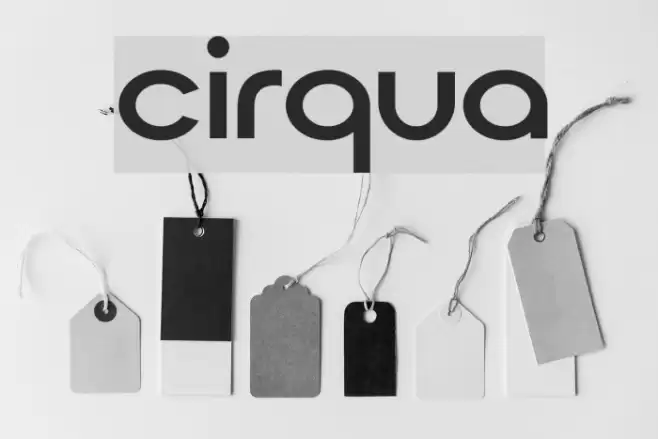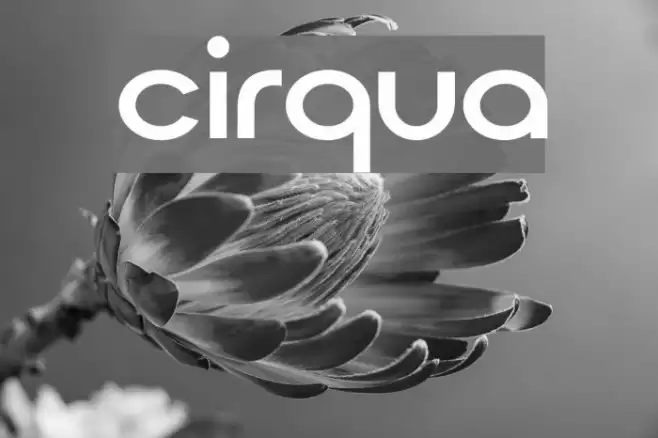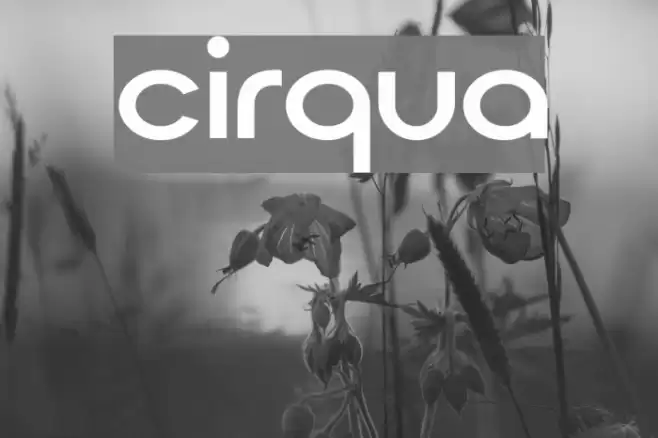
Cirqua Font
Cirqua Description
This font features a modern, geometric design with clean lines and a minimalist aesthetic. The characters are rounded and uniform, creating a harmonious and balanced appearance. The uppercase and lowercase letters maintain a consistent style, with smooth curves and a contemporary feel. The font's simplicity and clarity make it highly legible, even at smaller sizes. It is well-suited for a variety of design applications, offering a sleek and professional look.
- Proposed Projects: Ideal for branding, advertising, web design, and editorial projects where a modern and clean aesthetic is desired.